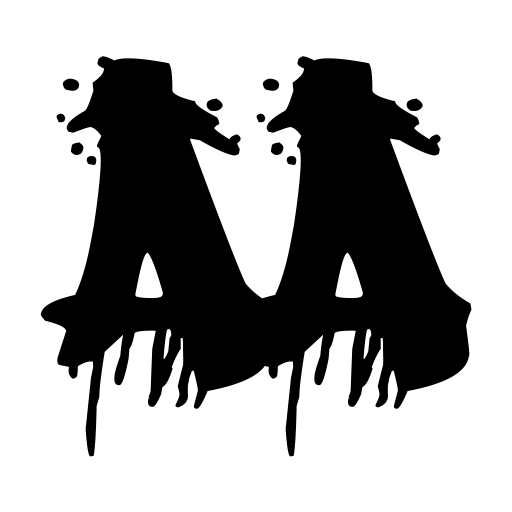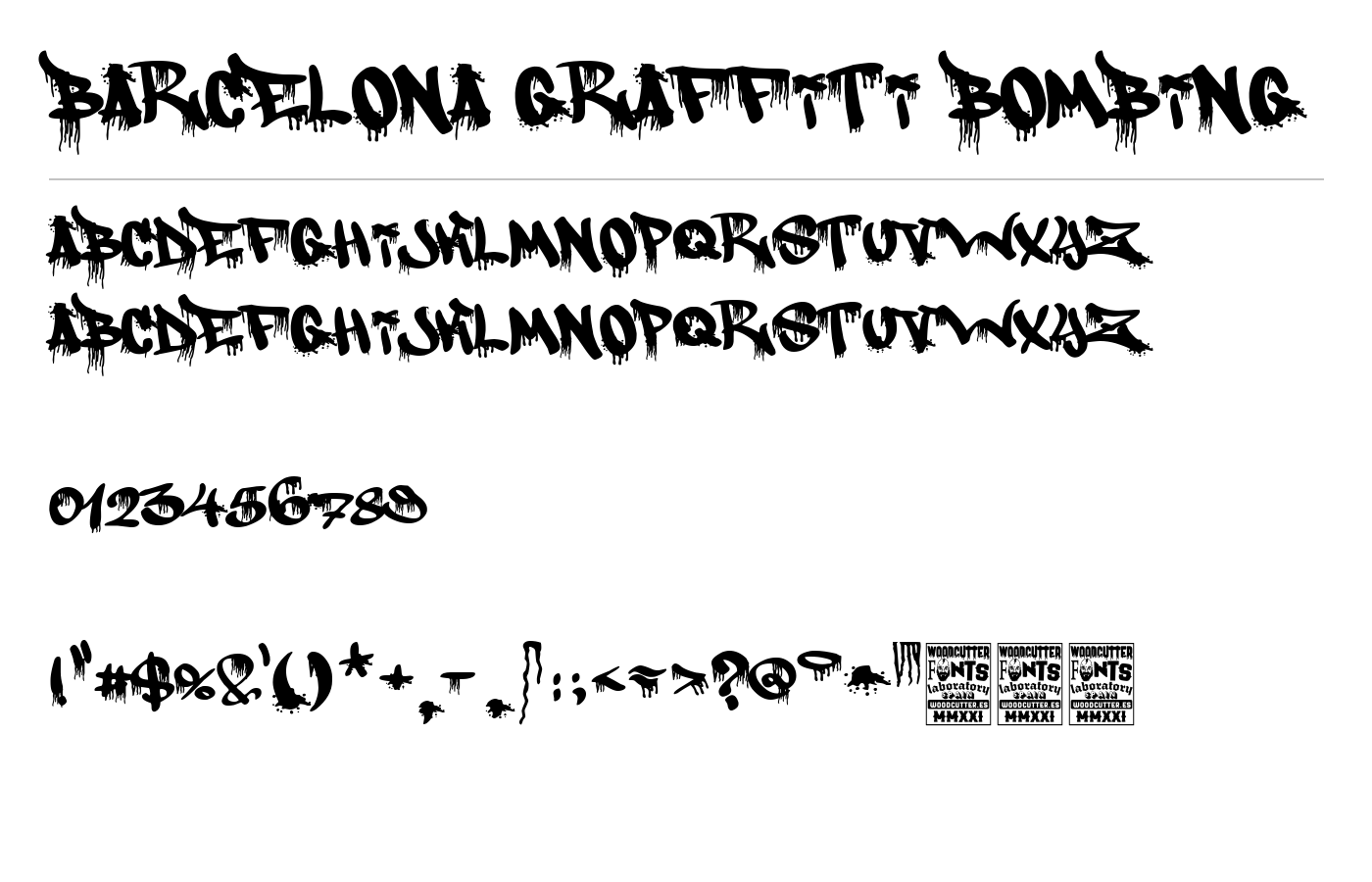
Barcelona Graffiti Bombing is a bold, edgy display font inspired by urban street art, featuring dripping paint effects that give it a raw and rebellious vibe. Its condensed letterforms and irregular shapes make it perfect for eye-catching headlines, posters, and designs seeking a gritty, youthful energy. This font works best in creative projects that want to convey a sense of underground culture and dynamic expression.
Barcelona Graffiti Bombing Font
About Barcelona Graffiti Bombing Font